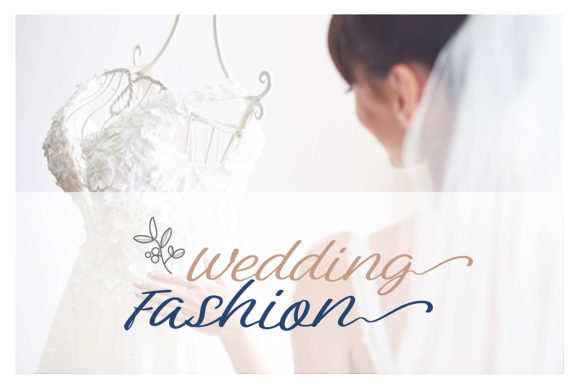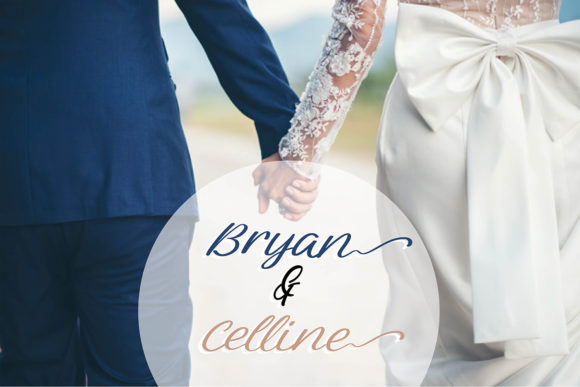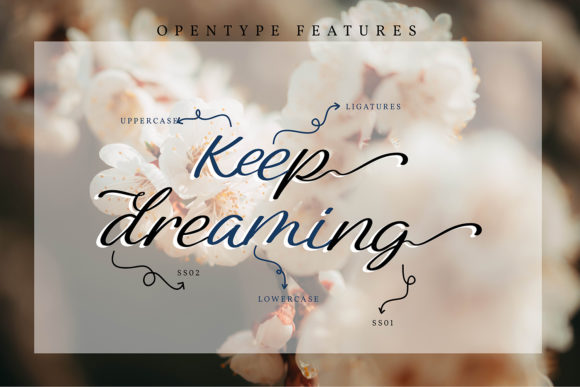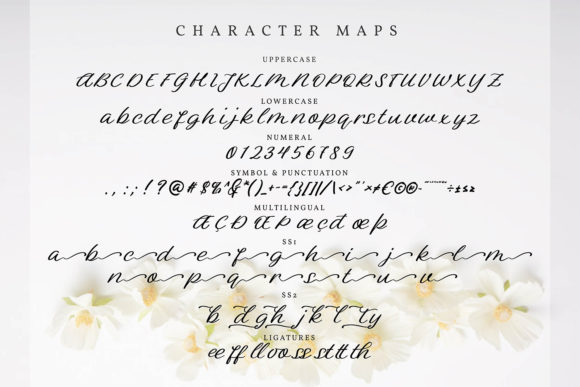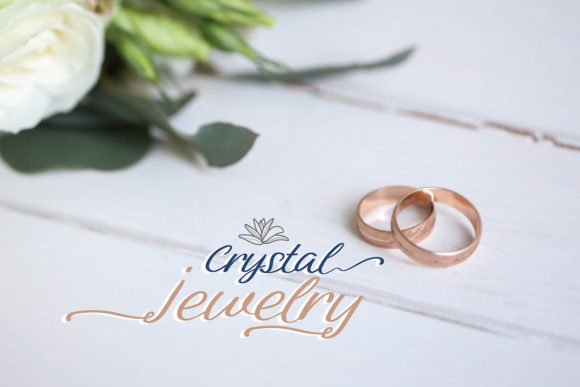
Introduction to Meryline Font
As a designer, have you ever found yourself pouring over a blank canvas, struggling to bring your creative vision to life? The perfect font can be the missing piece that sets your project apart. For me, it’s the moment when a well-chosen font clicks into place, and the entire design starts to feel cohesive and beautiful. And that’s exactly what the Meryline Font does – it adds a touch of elegance and sophistication to any creative project.
With its luxurious handwritten style, the Meryline Font is a game-changer for designers looking to create high-quality designs with a personal touch. Whether you’re working on a branding project or designing a beautiful wedding invitation, this font is sure to impress. And the best part? It’s PUA encoded, making it easy to access all of the glyphs and swashes you need to create stunning designs.
Key Features of Meryline Font
- High-quality design for creative projects, ideal for logos, branding, and advertising.
- Features a transparent background, allowing for seamless integration with any design.
- Unique characteristics include its elegant, cursive script and stylish flourishes, making it perfect for adding a touch of sophistication to any design.
- Designed to be highly legible, even at small font sizes, making it an excellent choice for body text or captions.
Honest Review: Meryline Font
- What works well: ✨ High quality and crisp typography make it ideal for use on transparent backgrounds, allowing your design to truly shine.
- What works well: ✨ The font’s versatility makes it suitable for a wide range of design applications, from logos to digital signage.
However, I do have a few minor complaints:
- ⚠️ The font family is relatively small, which might limit its use in certain design scenarios.
- ⚠️ Some users may find the font’s aesthetic to be a bit too ornate for their taste.
Introduction to Meryline Font
Meryline Font is a high-quality, free download design resource ideal for creative projects that require a unique and elegant touch. Its transparent background makes it versatile for use in various design applications.
To get the most out of Meryline Font, experiment with different font sizes, colors, and styles to find the perfect look for your project. You can also use it in combination with other design elements to create a unique and eye-catching design.
Common Use Cases for Meryline Font
Meryline Font is ideal for use in a wide range of creative projects, including graphic design, digital art, and typography-based designs. Its transparent background makes it perfect for use in backgrounds, overlays, and other design elements where a solid background is not needed.